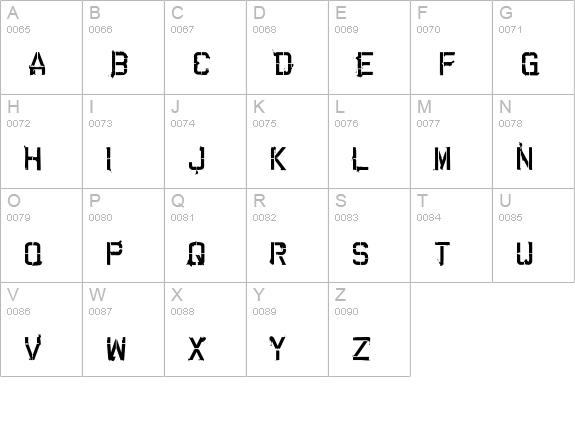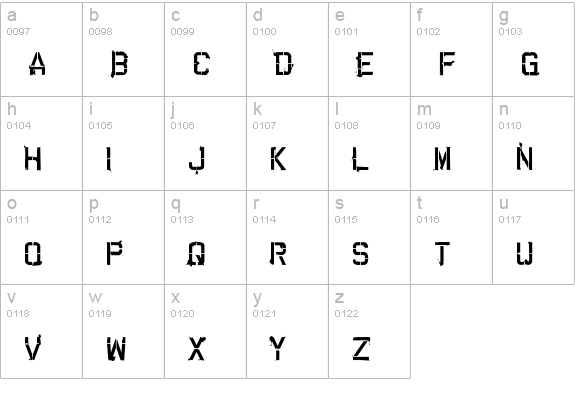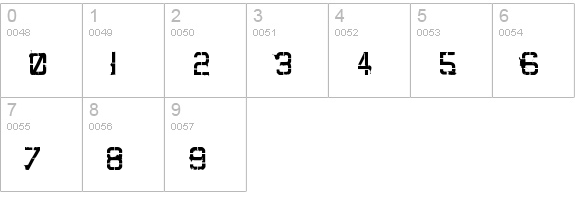
CARTAZ Font Details
Introducing CARTAZ font, a striking and modern typeface that is sure to make a statement in any design project. This versatile font is perfect for branding, logos, headlines, posters, and more. With its unique blend of sharp lines and elegant curves, CARTAZ exudes a sense of sophistication and style. What sets CARTAZ apart is not only its visually appealing design but also the fact that it is completely free to download. Yes, you read that right – this stunning font is freely available to download at FontsMarket.com. Whether you're a professional designer looking to add a fresh touch to your creations or a hobbyist looking to spice up your personal projects, CARTAZ is the perfect choice. Don't miss out on the opportunity to enhance your designs with this beautiful and free font. Download CARTAZ today and take your typography game to the next level!